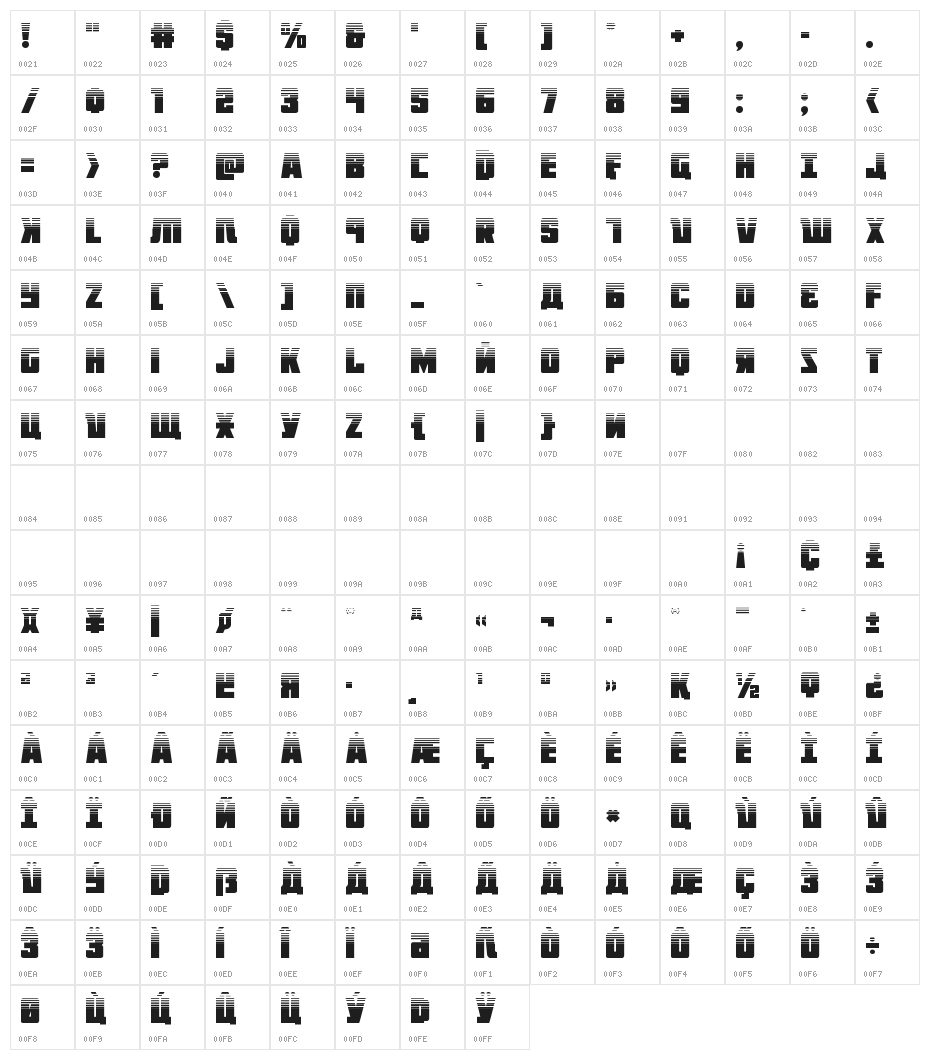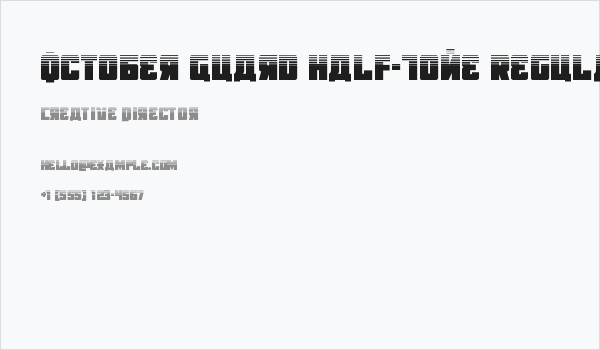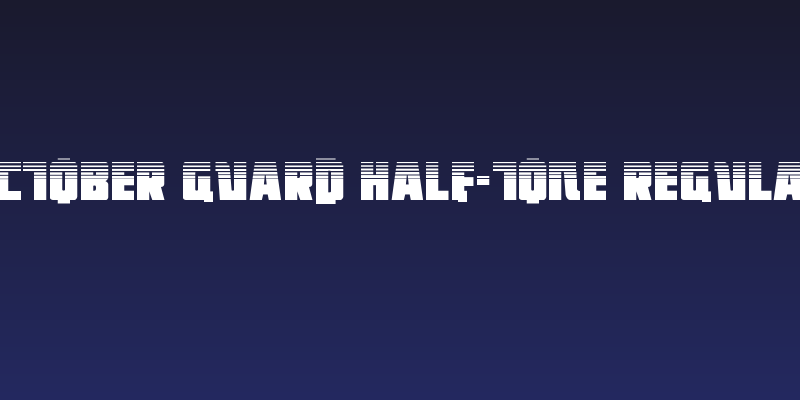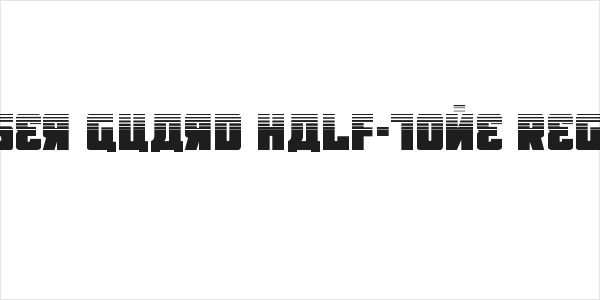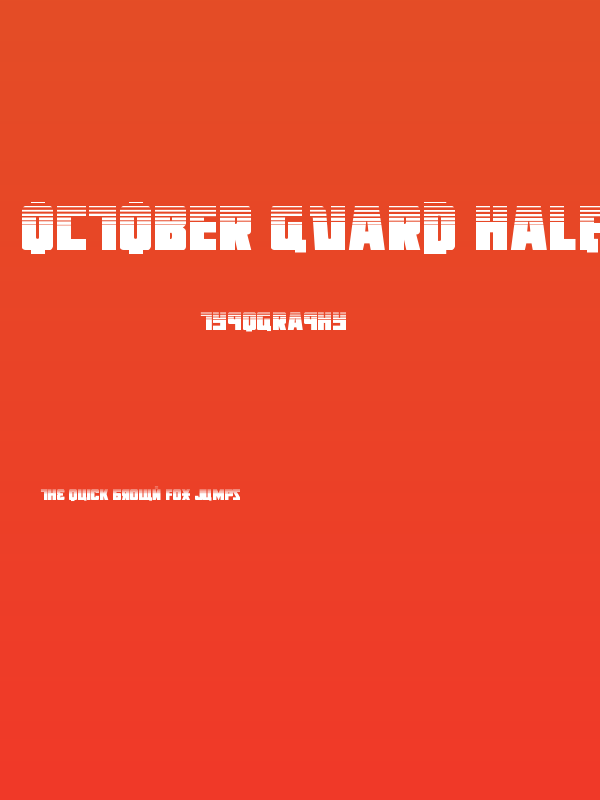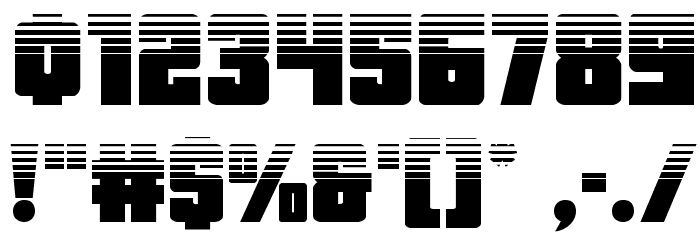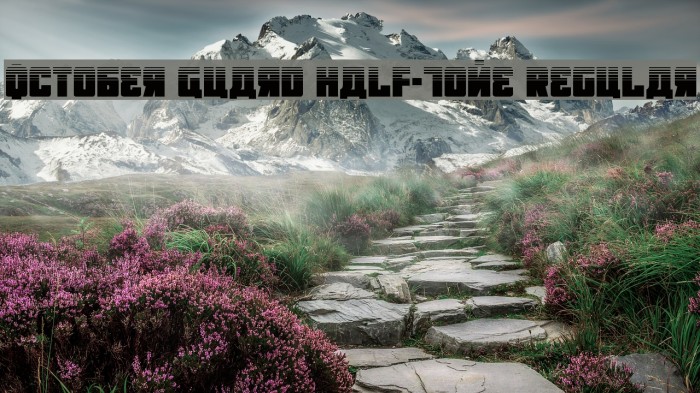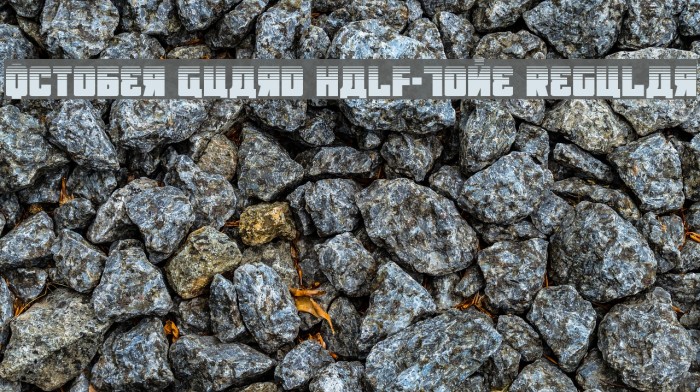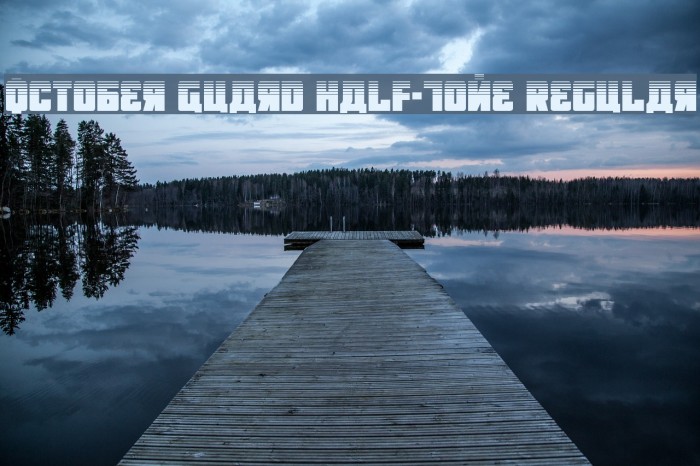
October Guard Half-Tone Regular Font
October Guard Half-Tone Regular Description
This font features a bold, geometric design with a distinct half-tone effect that creates a striking visual impact. The uppercase letters are characterized by their solid, block-like appearance, enhanced by horizontal lines that add texture and depth. The numerals and special characters follow the same stylistic approach, ensuring consistency across all glyphs. The font's design is reminiscent of industrial or futuristic themes, making it suitable for projects that require a strong, modern aesthetic. Its unique style is eye-catching and memorable, ideal for making a bold statement.
| Proposed Projects | Ideal for use in posters, logos, video game graphics, and any project requiring a futuristic or industrial look. |